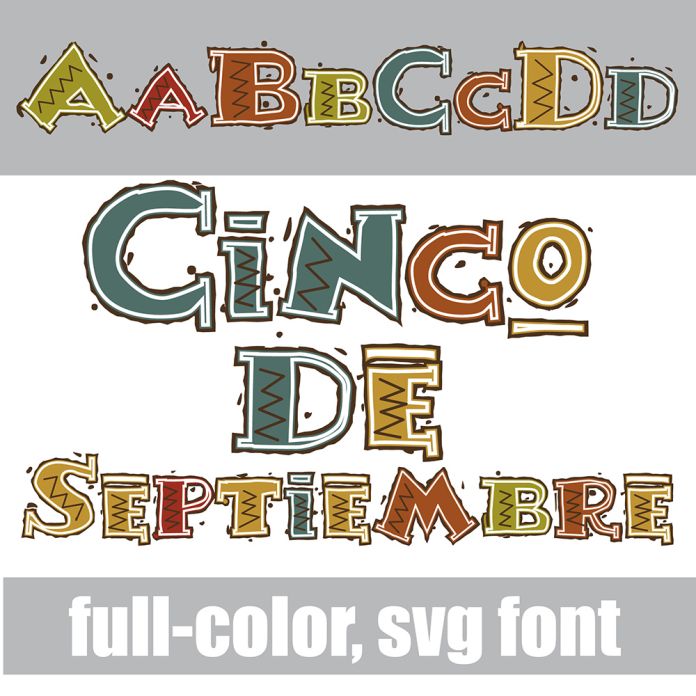
This full-color font has an Aztec, fiesta-style feel in an autumn color palette. There is an alt case with additional colors you can access through your system's character map. This font works best for titles, displays, posters and more. Please note color fonts will show as black in non compatible programs. This font type is compatible with Silhouette Studio.